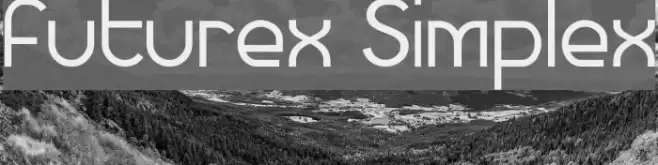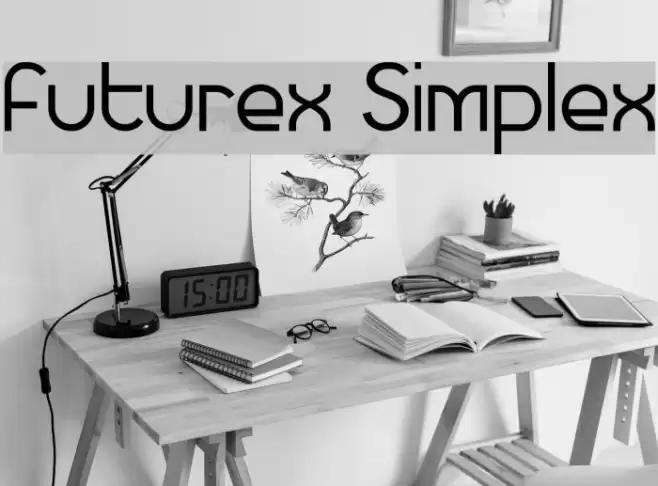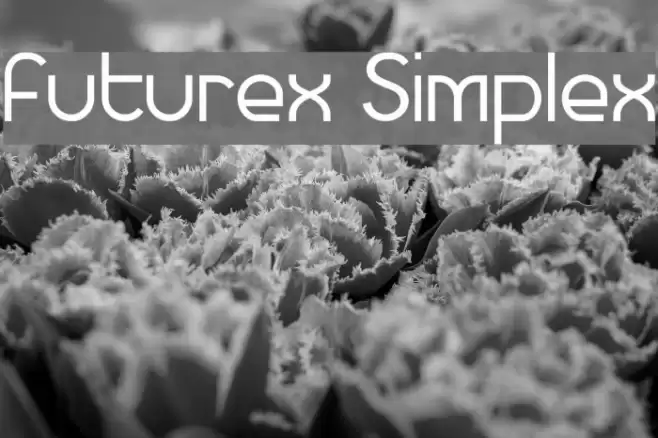
Futurex Simplex Font
Futurex Simplex Description
This font features a clean, geometric design with a modern aesthetic. The characters are constructed with consistent stroke widths, giving it a uniform appearance. The rounded edges and open counters contribute to its readability and friendly look. The uppercase letters are slightly taller than the lowercase, maintaining a balanced proportion. The numerals and special characters are designed to complement the overall style, making it versatile for various applications.
A modern, geometric font with rounded edges and consistent stroke widths from Futuristic fonts.
- Proposed Projects: Ideal for branding, advertising, and digital interfaces where a modern and clean look is desired.
- Use Case: Headlines, Body text, Logos